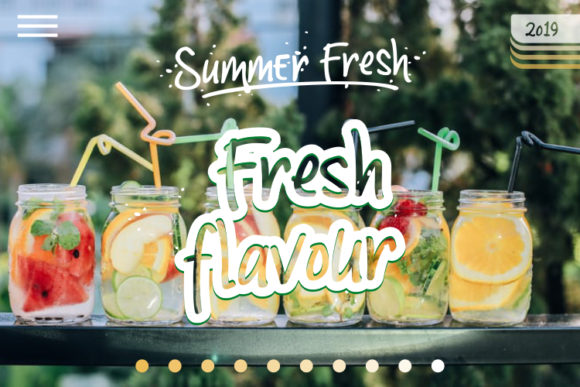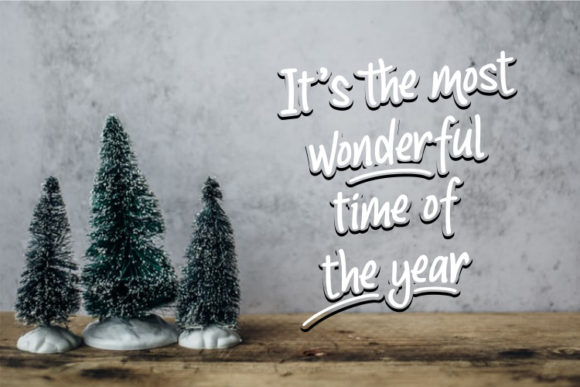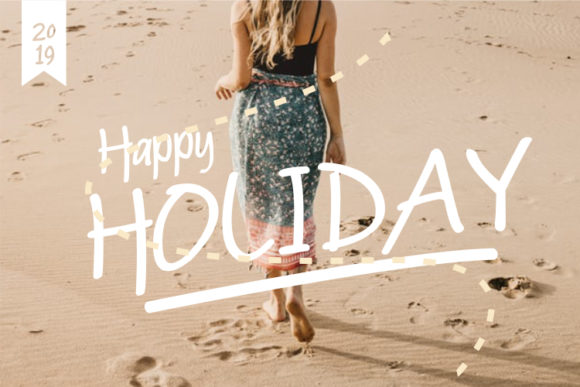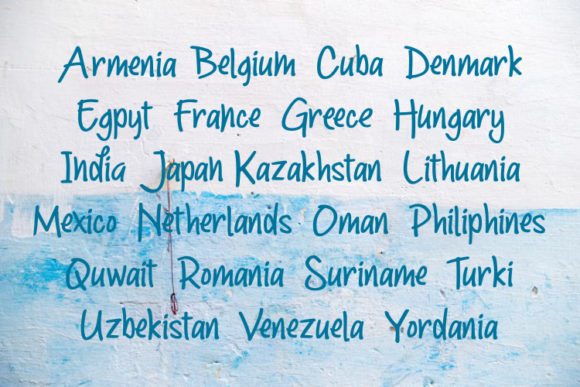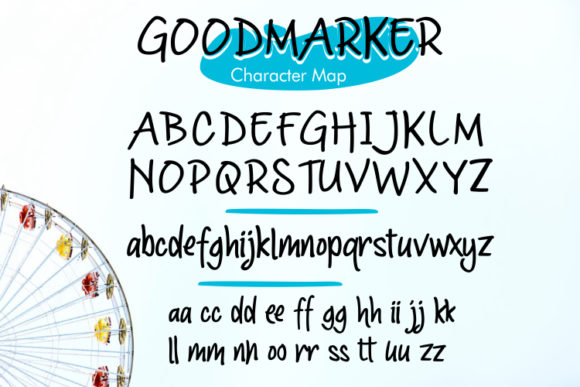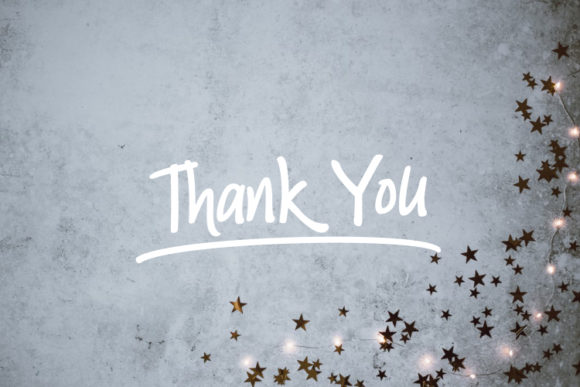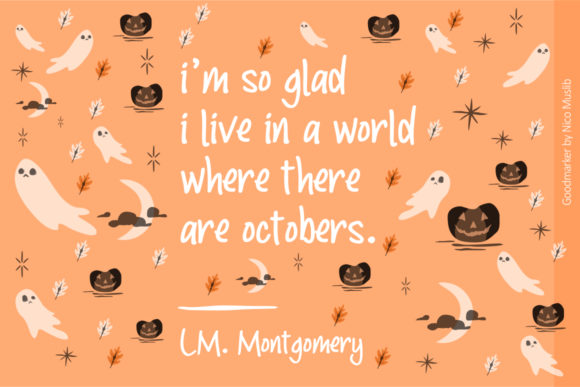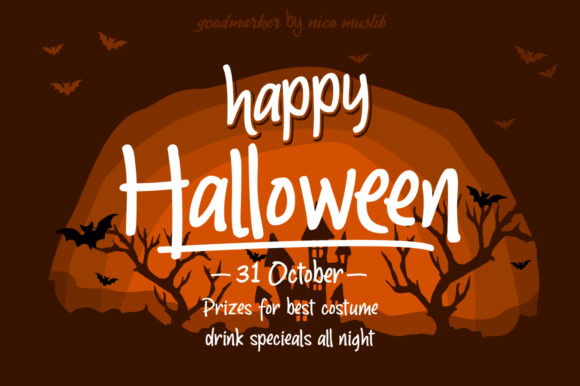
HomeScript FontsGoodmarker Font Script Fonts Goodmarker Font FacebookXPinterestWhatsApp Goodmarker Font Poster 2 Goodmarker Font Poster 3 Goodmarker Font Poster 4 Goodmarker Font Poster 5 Goodmarker Font Poster 6 Goodmarker Font Poster 7 Goodmarker Font Poster 8 Goodmarker Font Poster 9 About Goodmarker Font Goodmarker is a fun and playful marker font with a casual style. DOWNLOAD ON CREATIVE FABRICAThis font is sold and delivered by Creative Fabrica. Font Canyon may earn a commission if you buy through this link. People also explored Christina Tameni Font Antique X Condensed Font Lisabert Font The Better Font Amazing Font Website Font Diamond Font Athalia Beauty Font Dreamland Font 341 0 TagsGoodmarker Font Previous articleArthegos FontNext articlePhitton Font LEAVE A REPLY Cancel reply Comment: Please enter your comment! Name:* Please enter your name here Email:* You have entered an incorrect email address! Please enter your email address here Website: Save my name, email, and website in this browser for the next time I comment. Personal Use Free Ontel Personal Use Free Read more about this font Underwood Champion Personal Use Free Read more about this font Rare Knuckle Personal Use Free Read more about this font Arc Personal Use Free Read more about this font BLOG Best Fonts for YouTube Videos: Make Your Thumbnails Stand Out Best Fonts for YouTube Videos: Make Your Thumbnails Stand Out Choosing the right font can make a massive difference in how your YouTube videos perform.... To increase your work productivity, choose the most readable fonts. Elegant Wedding Invitation Fonts – Handwritten & Script Fonts Top 7 Google Fonts Alternatives for Faster and Privacy-Friendly Web Design (2025)